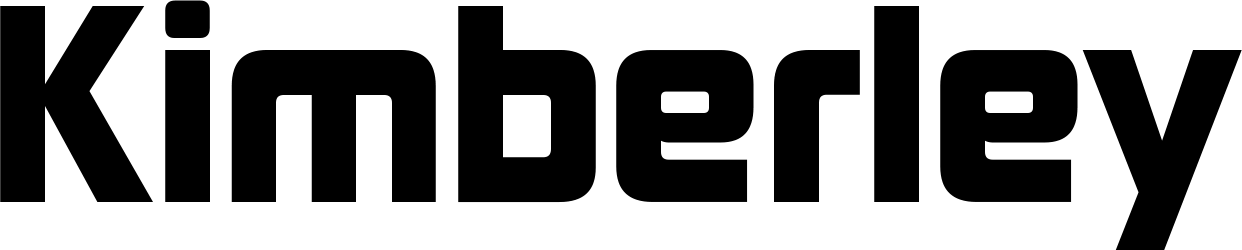
Kimberley Font
Kimberley is a friendly and casual that can be used in the body of the text because of its great legibility. You can use it in digital publications, apps, websites, branding, etc. This font can be an ideal option whenever you want to create a friendly and playful sense. It can also convey modernity to readers and communicate with them. Download and enjoy!